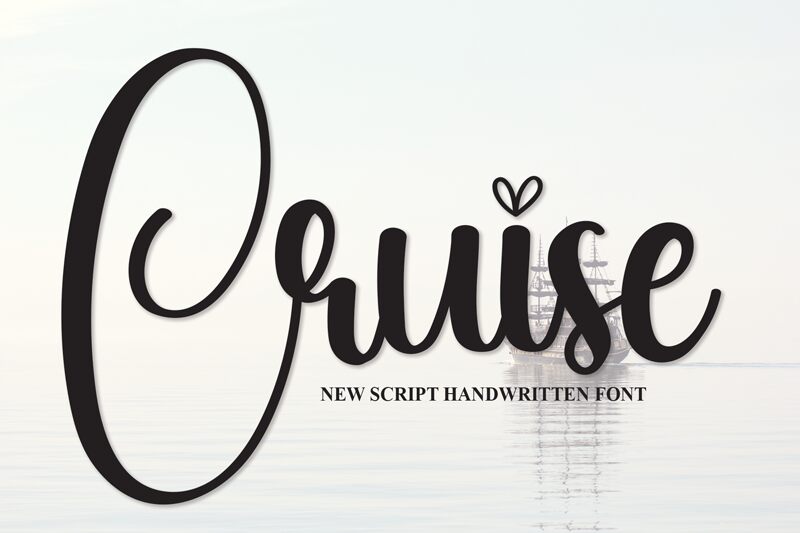
Cruise
Cruise, a creation by Scratchones, embodies the fluidity and grace of calligraphy in its every stroke. Its sweeping curves and playful loops give it a lively yet elegant feel, perfect for evoking a sense of sophistication with a touch of whimsy. The font's artistic flair is accentuated by the delicate heart above the 'i', adding a dash of charm to its overall aesthetic.
In terms of use cases, Cruise shines in contexts requiring an intimate, handcrafted touch. Ideal for wedding invitations, upscale branding, or any design that benefits from an air of bespoke luxury, this font is poised to elevate your project with its distinctive calligraphic beauty.